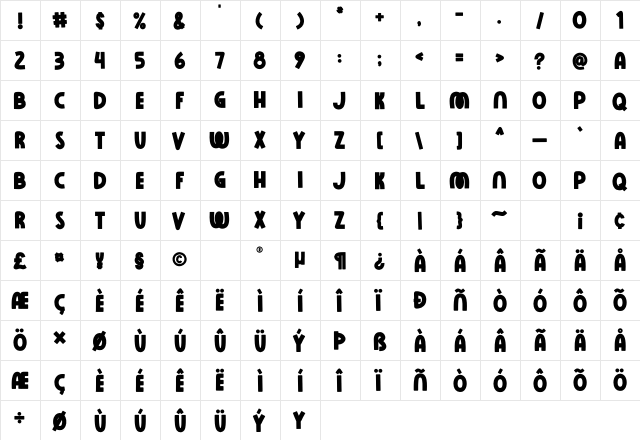
Rose Minie Bold
| Designer | The Docallisme |
Design Context for Rose Minie Typeface
Rose Minie is a composed and adaptable typeface that performs quietly and consistently across a wide range of design contexts. The heavy weight commands attention and anchors typographic hierarchies.